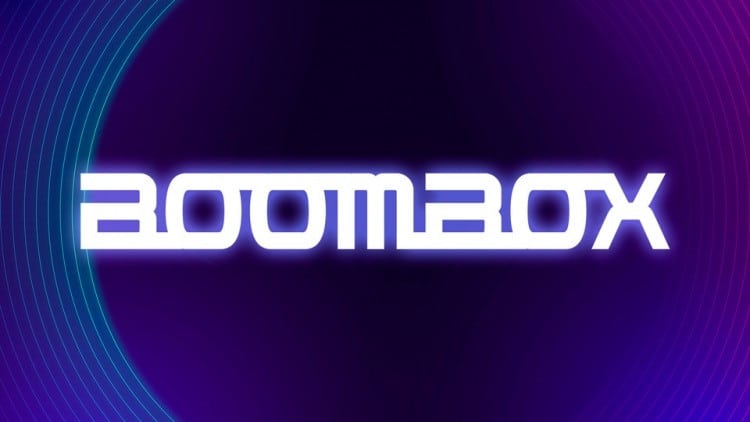
Boombox Display Font
Boombox Display Font, designed by Jonathan Paterson is a bold retro futuristic display typeface created for short texts in a log kind of way that take place on a space station during a deep space adventure.
Boombox is an OpenType font with only unaccented letters, numbers and minimal punctuation. Letters can be joined using the OpenType swash feature. Alternatively, you can insert underline and macron characters between letters.